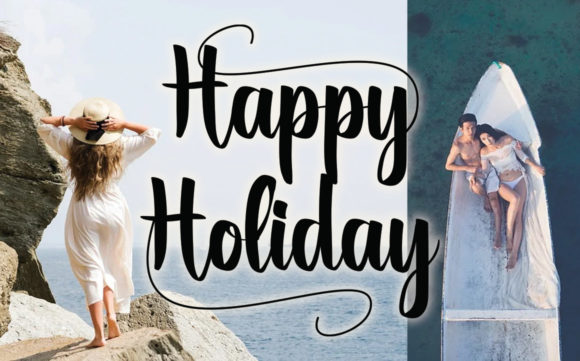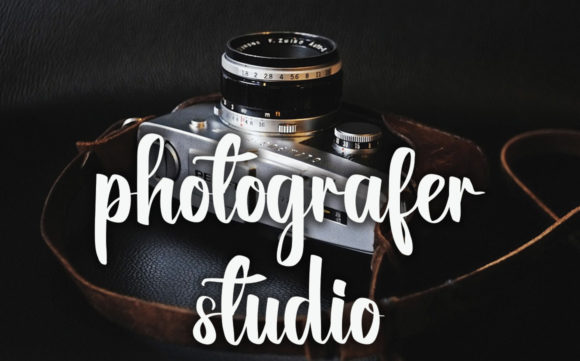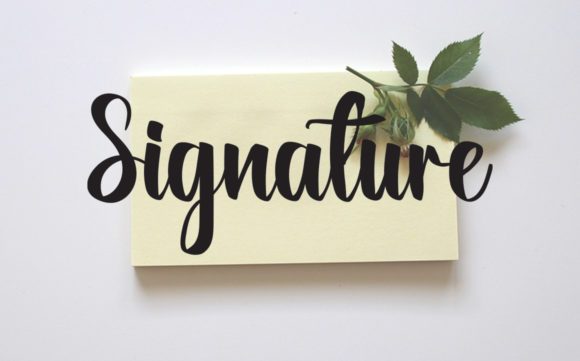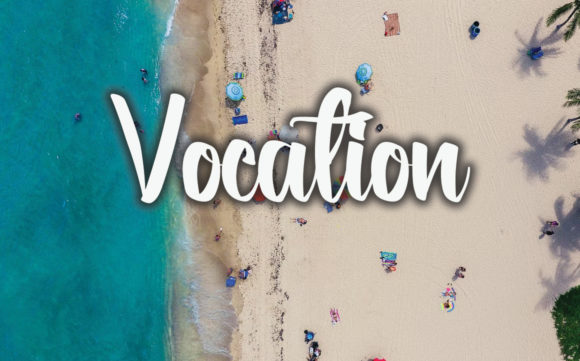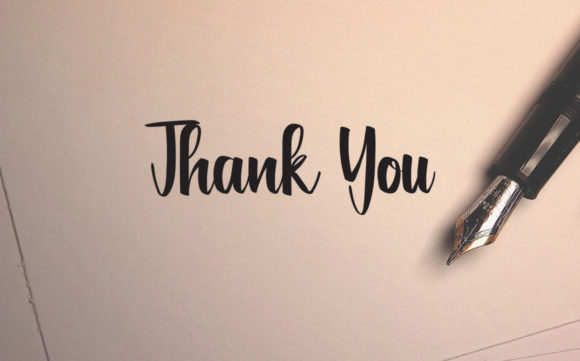
Getting into the Holiday Spirit with the Perfect Font
It’s that time of the year when creativity runs wild and our projects take on a festive twist. As designers, we’re always on the lookout for the perfect font to capture the essence of the season, and this year we’re obsessed with the Happy Holiday Font.
This elegant script font exudes a contemporary atmosphere and impeccable form, drawing inspiration from timeless classic calligraphy. With its balanced and varied strokes, it’s the perfect addition to any project, from holiday cards to gift tags and packaging designs.
What sets the Happy Holiday Font apart is its versatility – not too thin, not too thick, making it an ideal choice for designers who want to add a touch of sophistication to their work without overpowering the content. Whether you’re a seasoned pro or a newcomer to the world of design, the Happy Holiday Font is sure to bring a smile to your face and a touch of magic to your projects.
- Unique Characteristics: Happy Holiday Font features a festive and cheerful design, perfect for holiday-themed projects, with intricate details and ornaments that evoke a sense of joy and celebration.
Happy Holiday Font Review
Overall, I’m quite pleased with the Happy Holiday Font. Here are the things that really shine: ✨
- Unique and festive feel, perfect for holiday-themed designs.
- Well-balanced character set with clear, legible letters.
- Supports a wide range of languages, making it a great choice for global holiday promotions.
However, there are some limitations to keep in mind: ⚠️
- Limited font sizes: it’s best suited for titles, headings, and short blocks of text.
- Not ideal for body text, as it can be a bit too ornate and distracting.
- Some characters, like the ampersand, may not display correctly in certain contexts.
Overall, I think the Happy Holiday Font is a great choice for designers looking to add a festive touch to their holiday designs. While it may have some limitations, its unique feel and well-balanced character set make it a valuable addition to any designer’s toolkit.
Use Happy Holiday Font for festive and seasonal designs, such as:
– Holiday cards and invitations
– Gift tags and wrapping paper
– Social media graphics and ads
For optimal results, use Happy Holiday Font in conjunction with bold and bright colors to create a festive atmosphere.